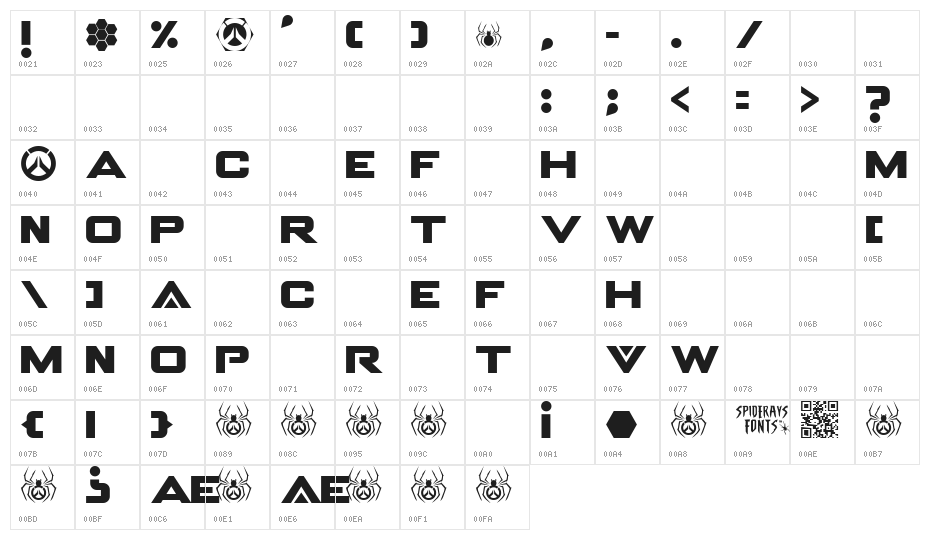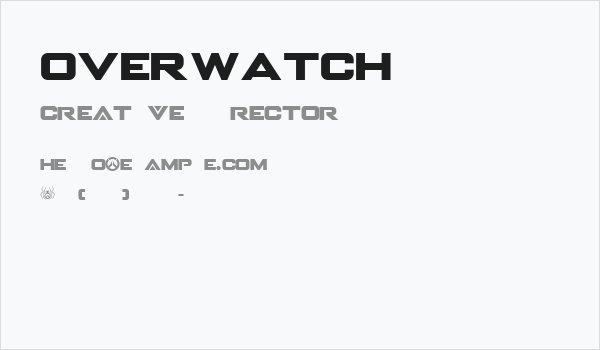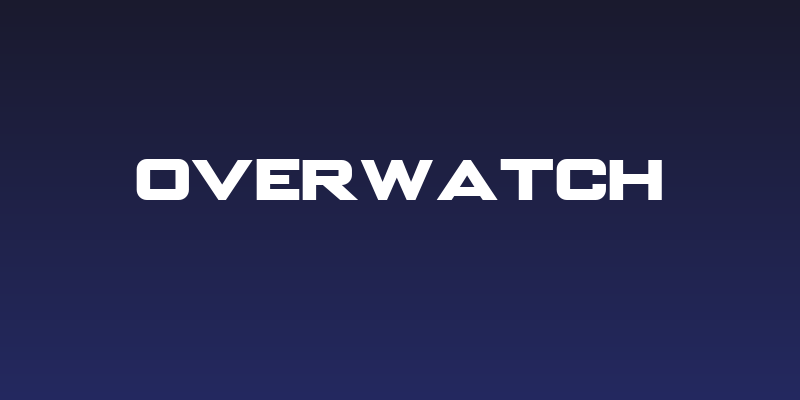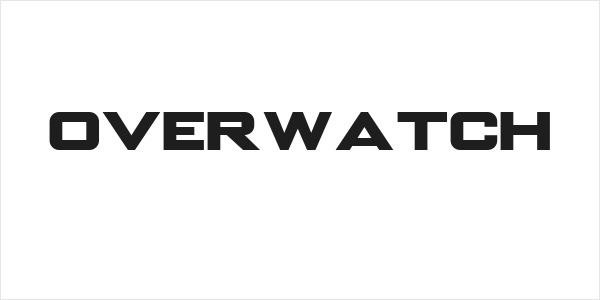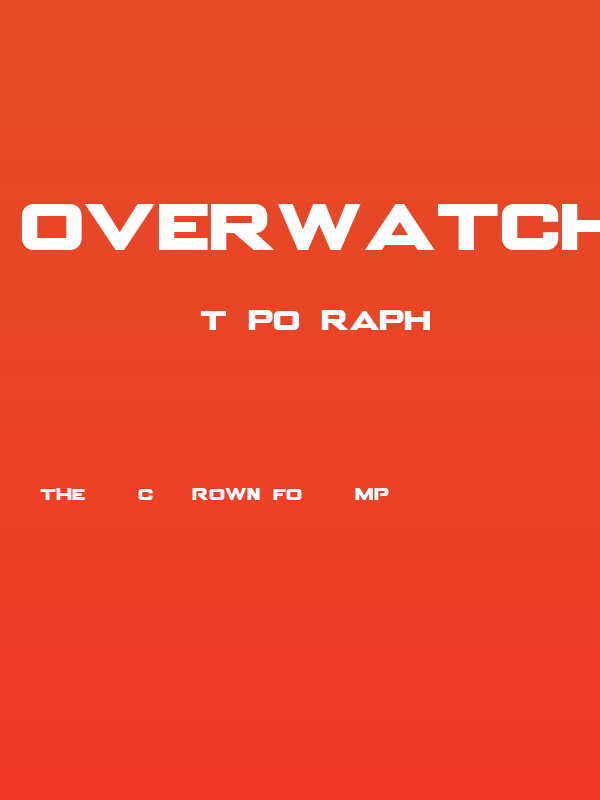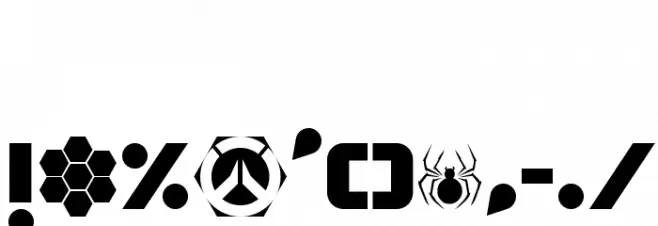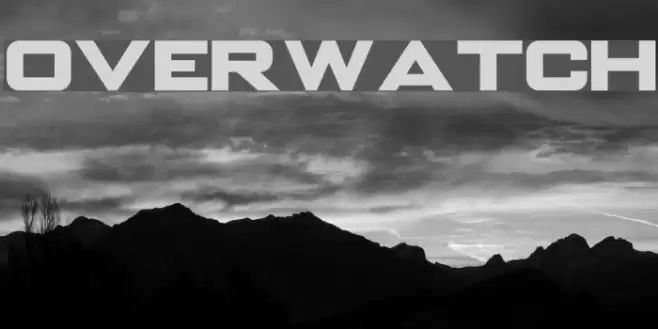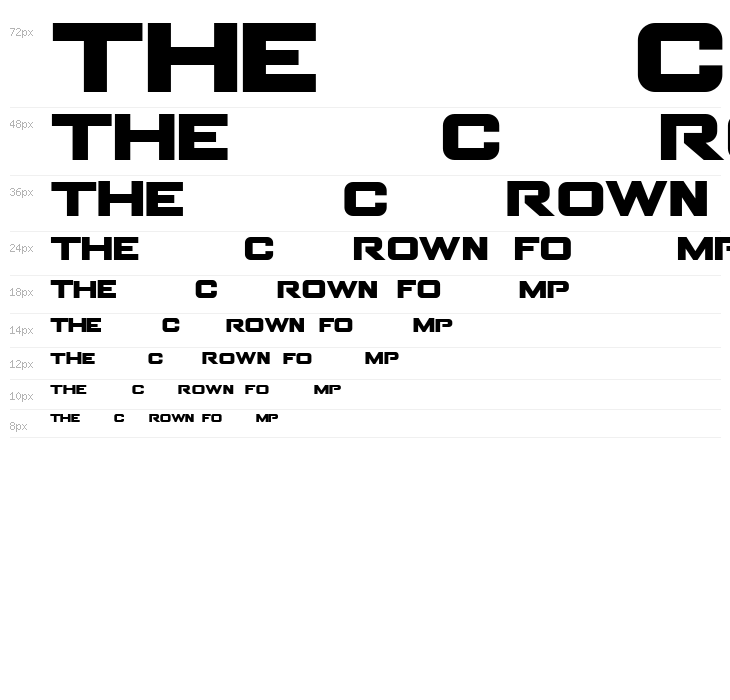
OVERWATCH Font
OVERWATCH Description
This font features a bold, futuristic design with sharp angles and geometric shapes. The characters are constructed with a strong, solid appearance, giving them a sense of stability and modernity. The uppercase letters are particularly striking, with a uniform height and width that create a cohesive look. The font includes unique symbols and icons that add a distinctive touch, making it suitable for creative and tech-oriented projects. Its boldness and clarity make it ideal for impactful headlines and logos.
OVERWATCH
| Proposed Projects | Ideal for video game titles, tech branding, sci-fi movie posters, and futuristic-themed designs. |